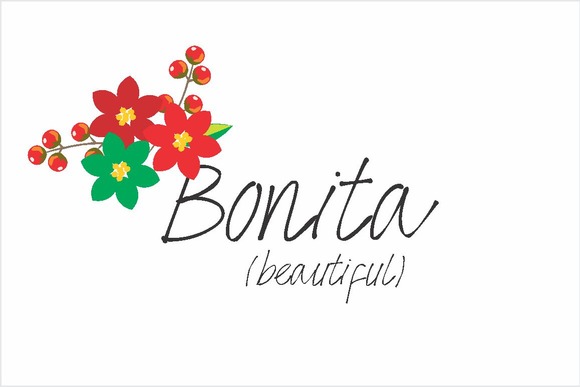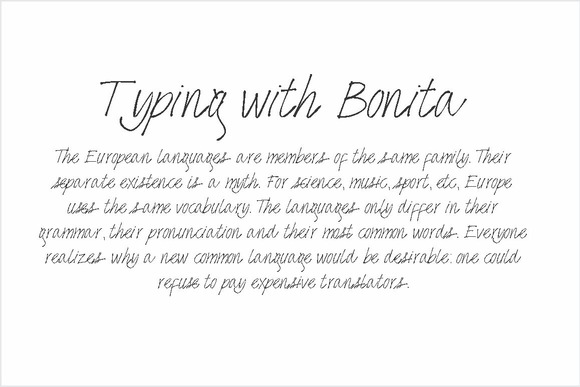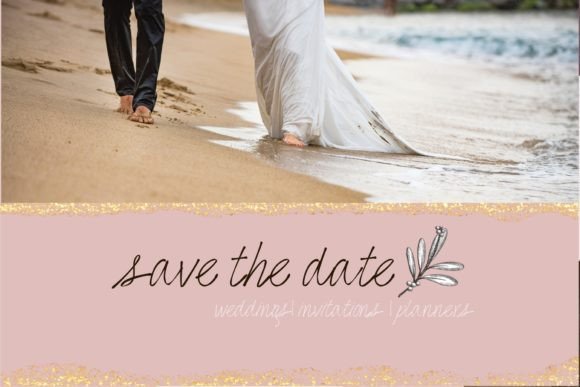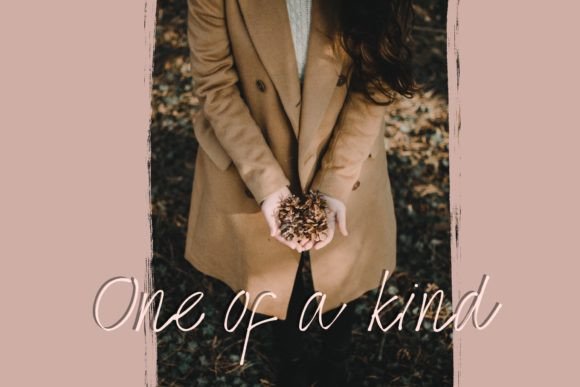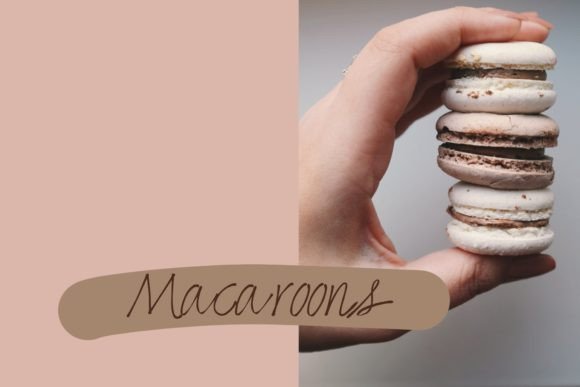
Discover the Elegance of Bonita Font: A Versatile Italic Type Script Font
Are you a designer or crafter looking for a font that exudes elegance and sophistication? Look no further than the Bonita font. This beautiful italic type script font is perfect for a variety of projects, from creative crafts to digital designs. In this article, we’ll explore the features and benefits of the Bonita font, and show you how to make the most of this versatile typeface.
What is Bonita Font?
Bonita is a stunning italic type script font that is designed to add a touch of elegance to any project. Its flowing lines and cursive strokes create a beautiful, handwritten look that is perfect for a wide range of applications. Whether you’re working on a logo, a greeting card, or a digital design, Bonita is the perfect choice.
Key Features of Bonita Font
- Italic Type Script Font: Bonita is a true italic type script font, with beautifully flowing lines and cursive strokes.
- Versatile: Bonita can be used for a wide range of projects, from creative crafts to digital designs.
- Elegant: The font’s elegant design makes it perfect for projects that require a touch of sophistication.
- Easy to Read: Despite its elegant design, Bonita is easy to read, making it perfect for body text and other applications where legibility is important.
Uses for Bonita Font
Bonita is a versatile font that can be used for a wide range of projects. Here are just a few ideas to get you started:
- Creative Crafts: Use Bonita to add a personal touch to your craft projects, such as scrapbooking, card making, and journaling.
- Digital Designs: Bonita is perfect for digital designs, such as social media graphics, blog posts, and website headers.
- Logos and Branding: The elegant design of Bonita makes it a great choice for logos and branding projects.
- Stationery and Invitations: Use Bonita to create beautiful stationery and invitations that are sure to impress.
Tips for Using Bonita Font
Here are a few tips for getting the most out of Bonita:
- Use it Sparingly: While Bonita is a beautiful font, it can be overwhelming if used too much. Use it sparingly to add a touch of elegance to your project.
- Pair it with Other Fonts: Bonita pairs well with a variety of other fonts, including sans serif fonts and serif fonts. Experiment with different pairings to find the one that works best for your project.
- Adjust the Size and Color: Don’t be afraid to experiment with different sizes and colors to find the one that works best for your project.
In conclusion, Bonita is a beautiful italic type script font that is perfect for designers and crafters looking to add a touch of elegance to their projects. Its versatility, elegance, and ease of use make it a great choice for a wide range of applications. Whether you’re working on a creative craft project or a digital design, Bonita is sure to impress.
So why not give Bonita a try? With its beautiful design and versatility, it’s sure to become a favorite in your font collection.